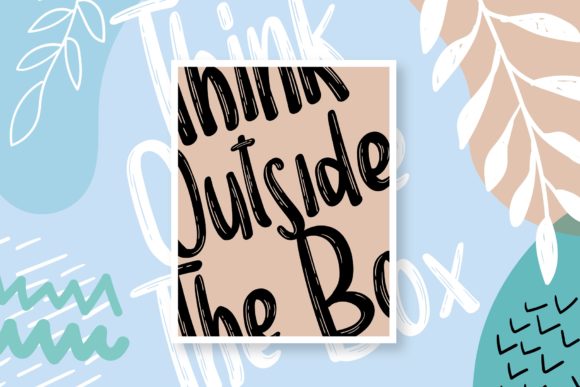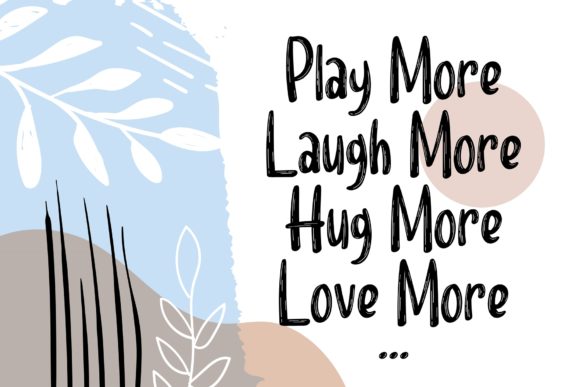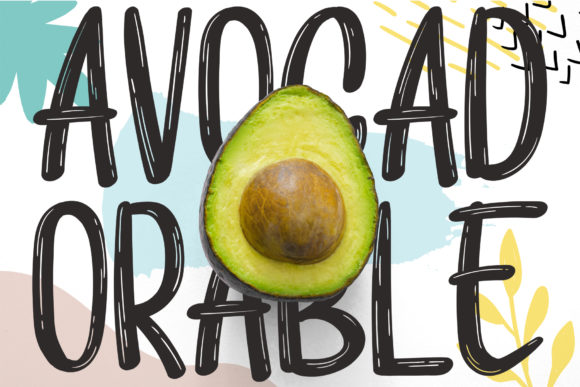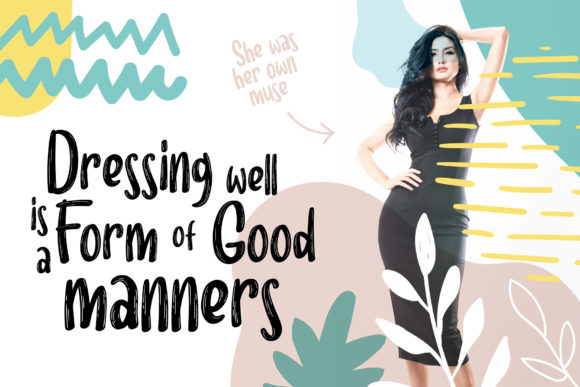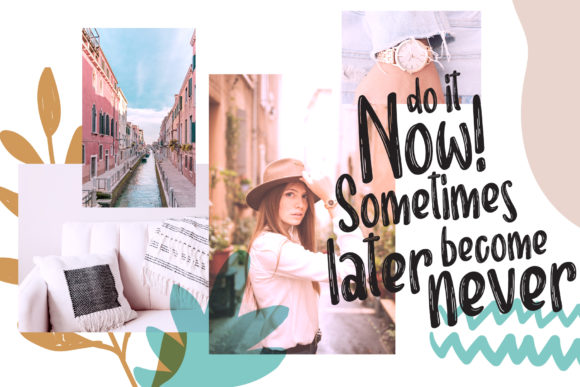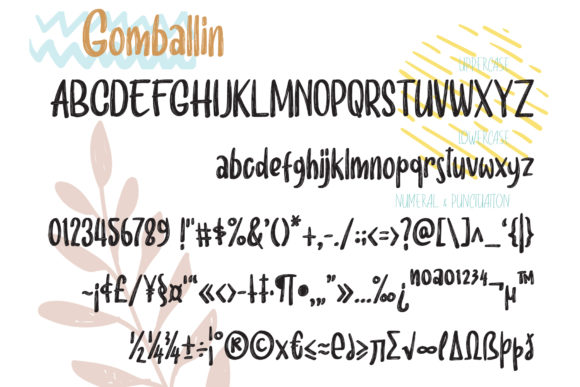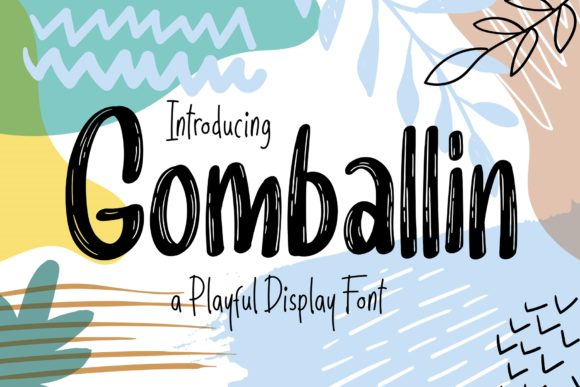
Gomballin Font: A Playful and Sweet Display Font with Modern Elegance
In the world of typography, fonts play a crucial role in conveying messages, expressing emotions, and creating visual identities. For designers, crafters, and creative enthusiasts, finding the perfect font can be a daunting task. However, if you’re looking for a font that combines playfulness, sweetness, and modern elegance, look no further than the Gomballin Font.
What is Gomballin Font?
Gomballin is a display font that boasts a unique style, perfect for making a statement in various design projects. Its playful and sweet characteristics make it an excellent choice for designs that require a touch of whimsy and fun. Whether you’re working on a logo, branding materials, or creative crafts, Gomballin Font is sure to inspire your next project.
Key Features of Gomballin Font
- Unique Style: Gomballin Font features a one-of-a-kind design that sets it apart from other fonts. Its distinctive style makes it perfect for designers looking to add a touch of personality to their work.
- Playful and Sweet: The font’s playful and sweet characteristics make it ideal for designs that require a lighthearted and approachable tone.
- Modern Elegance: Despite its playful nature, Gomballin Font exudes modern elegance, making it suitable for a wide range of design applications, from luxury brands to creative crafts.
- Display Font: As a display font, Gomballin is perfect for headlines, titles, and short text passages, where its unique style can shine.
Who Can Benefit from Gomballin Font?
Gomballin Font is an excellent choice for various designers, crafters, and creative enthusiasts, including:
- Graphic Designers: Looking for a unique font to add to their collection, Gomballin Font is perfect for creating stunning visual identities, logos, and branding materials.
- Crafters: Whether you’re into scrapbooking, card making, or other paper crafts, Gomballin Font can add a touch of personality to your creations.
- Branding Experts: For those looking to create a distinctive brand voice, Gomballin Font can help establish a playful yet elegant tone.
How to Use Gomballin Font?
Using Gomballin Font is easy and versatile. Here are some ideas to get you started:
- Logos and Branding: Use Gomballin Font as a logo font or for branding materials, such as business cards, letterheads, and packaging.
- Signs and Posters: Create eye-catching signs and posters with Gomballin Font, perfect for advertising, promotions, or events.
- Crafts and DIY Projects: Add a personal touch to your scrapbooking, card making, or other paper crafts with Gomballin Font.
- Digital Designs: Use Gomballin Font in digital designs, such as social media graphics, blog headers, or website titles.
Tips and Tricks for Working with Gomballin Font
To get the most out of Gomballin Font, here are some tips and tricks to keep in mind:
- Experiment with Colors: Gomballin Font looks great in various colors, so don’t be afraid to experiment and find the perfect hue for your design.
- Mix and Match: Combine Gomballin Font with other fonts to create a unique and visually appealing design.
- Pay Attention to Size: As a display font, Gomballin Font works best in larger sizes, so make sure to adjust the font size according to your design needs.
In conclusion, Gomballin Font is a playful and sweet display font with a unique style that exudes modern elegance. Its versatility and charm make it an excellent choice for designers, crafters, and creative enthusiasts looking to add a touch of personality to their work. With its wide range of applications and easy-to-use features, Gomballin Font is sure to inspire your next design project.